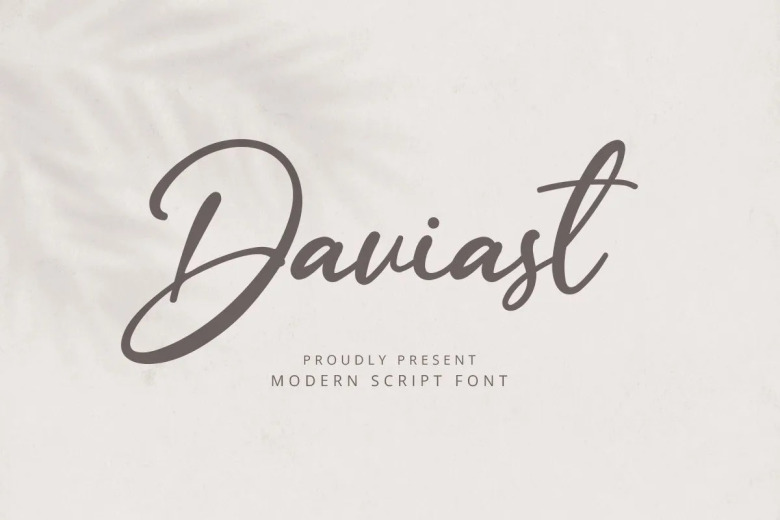
Daviast Font
Daviast is a sweet and beautiful handwritten font, perfect for logos, greeting cards, posters, book covers…and many more! Go ahead, add it to your fonts library and I’m confident you’ll also be reaching for this one often!
Daviast Handwritten Script Font